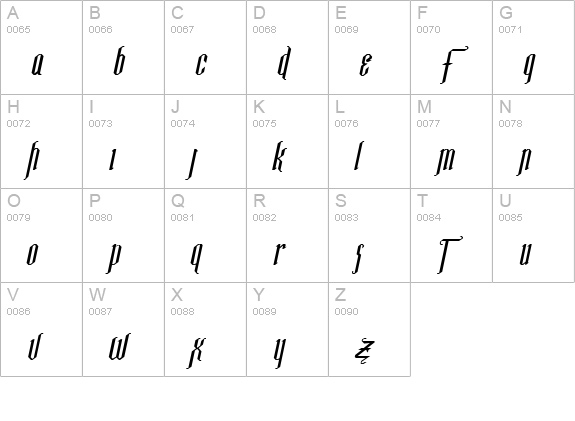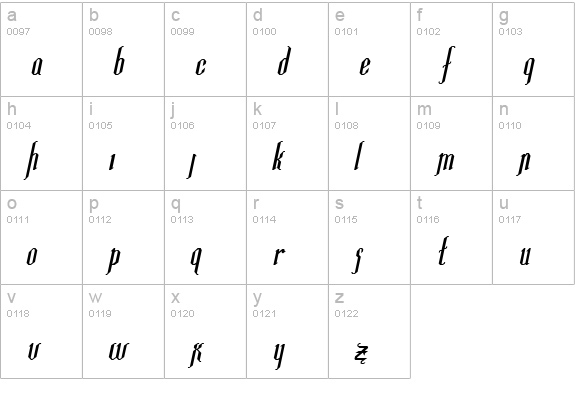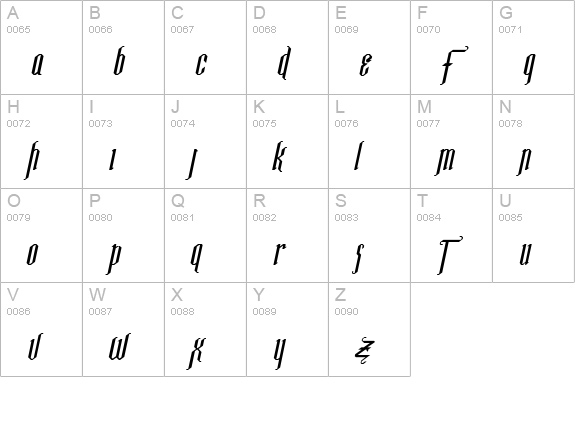
IpswichExtended Bold Italic Font Details
IpswichExtended Bold Italic is a strong, high-contrast, italic variant in the IpswichExtended typeface family \xE2\x80\x94 well suited to headlines, attention-grabbing titles, and strong calls-to-action.
IpswichExtended Bold Italic is a striking and versatile font that combines boldness with elegance. This unique font exudes confidence and sophistication, making it perfect for a wide range of design projects. With its bold and italicized characters, IpswichExtended Bold Italic adds a touch of flair and modernity to any creative endeavor. What sets IpswichExtended Bold Italic apart is not only its captivating aesthetics but also its accessibility. This font is freely available to download at FontsMarket.com, making it a valuable asset for designers, artists, and enthusiasts alike. Whether you're working on a logo, poster, website, or any other design project, IpswichExtended Bold Italic will make a powerful statement and leave a lasting impression. The boldness of this font commands attention, while the italicized style adds a sense of movement and dynamism. The carefully crafted letterforms of IpswichExtended Bold Italic ensure legibility and readability, even at smaller sizes. Each character has been meticulously designed to create a harmonious balance between curves and straight lines, resulting in a visually stunning typeface. IpswichExtended Bold Italic is not just a font; it is a tool that allows you to express your creativity and bring your ideas to life. Whether you're designing for print or digital media, this font will elevate your work to new heights. Its versatility makes it suitable for a variety of applications, from headlines and titles to body text and captions. In addition to its aesthetic appeal, IpswichExtended Bold Italic is also highly functional. It supports a wide range of languages and character sets, ensuring that you can use it for projects with diverse linguistic requirements. Its smooth curves and clean lines ensure that each character is rendered with precision and clarity, even on high-resolution displays. So why wait? Experience the boldness and elegance of IpswichExtended Bold Italic for yourself. Download it freely at FontsMarket.com and unlock a world of creative possibilities. Whether you're a professional designer or a passionate hobbyist, this font will inspire and empower you to create visually stunning and impactful designs. Embrace the power of IpswichExtended Bold Italic and take your designs to the next level.